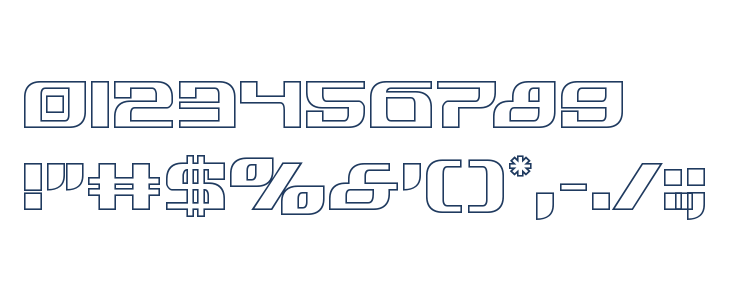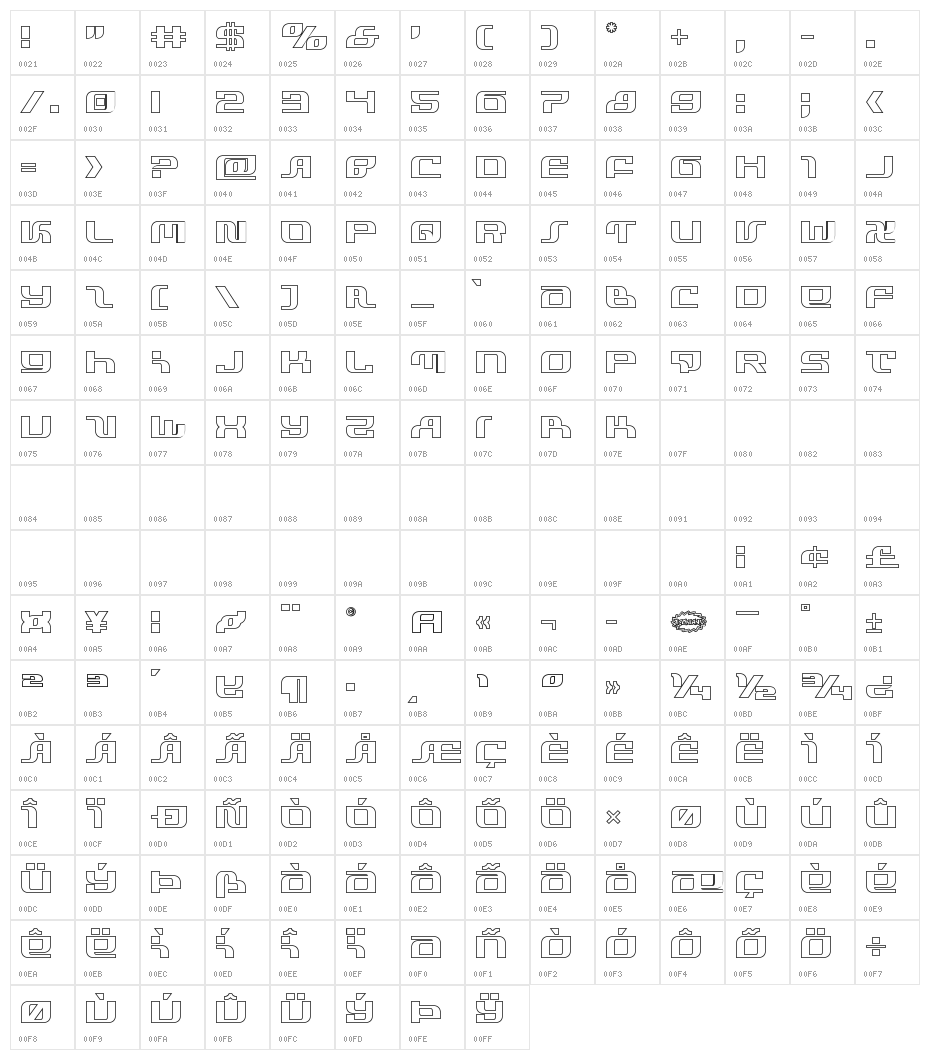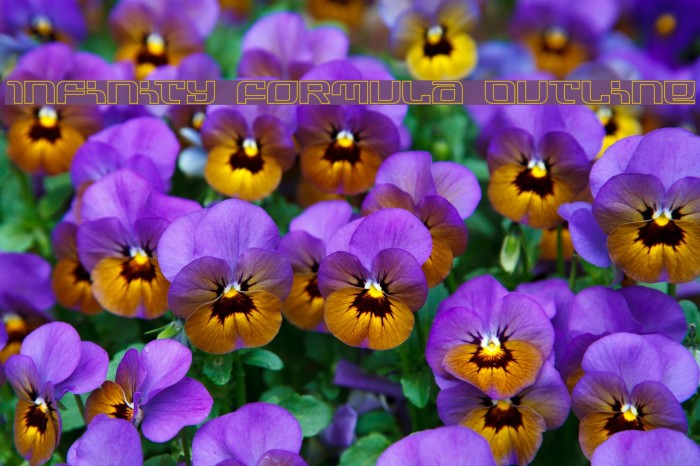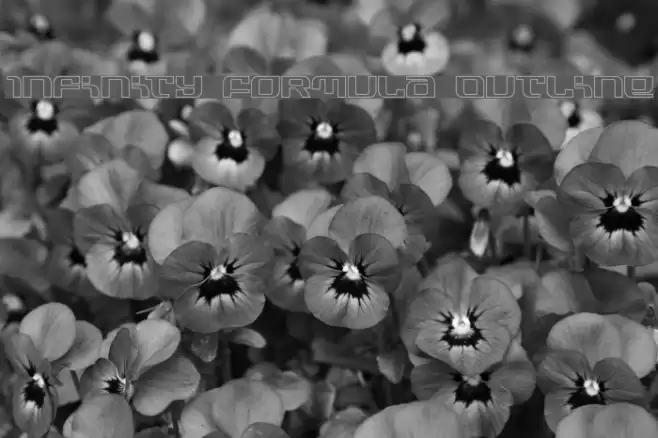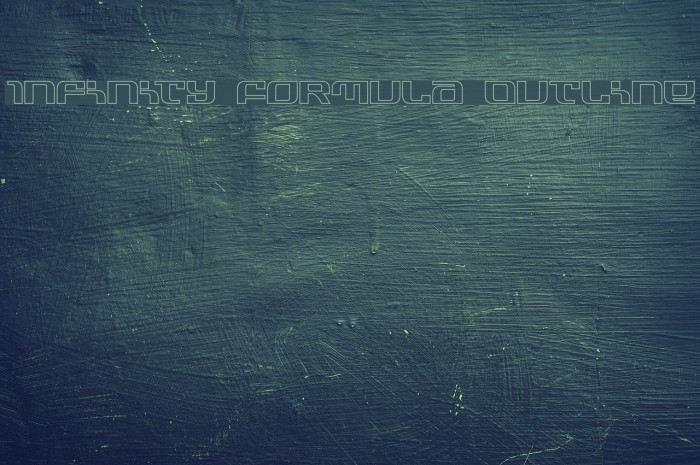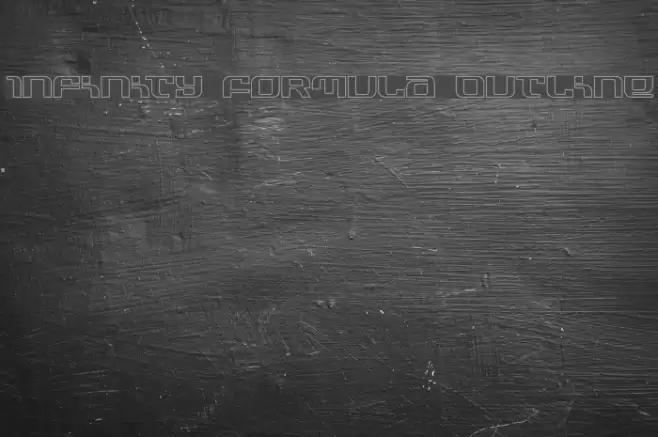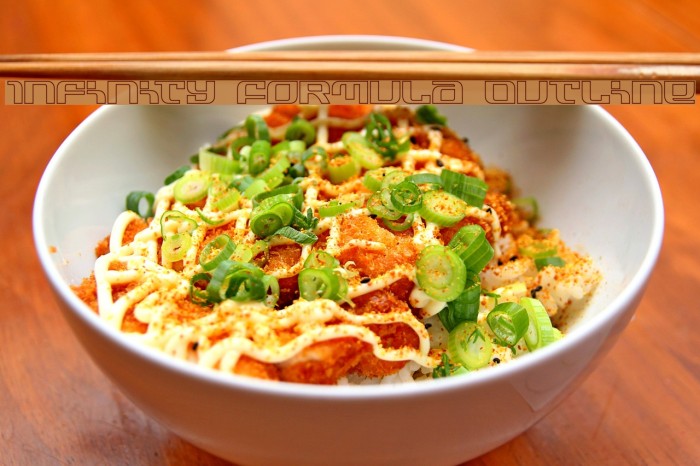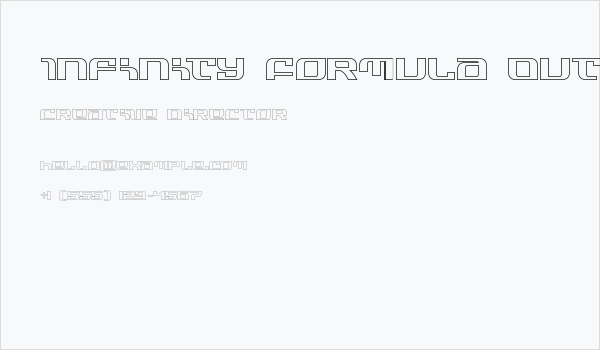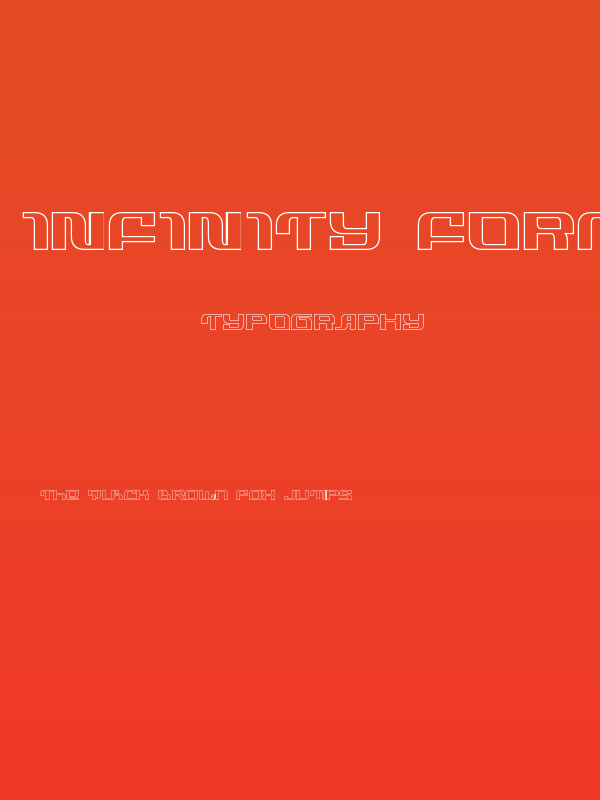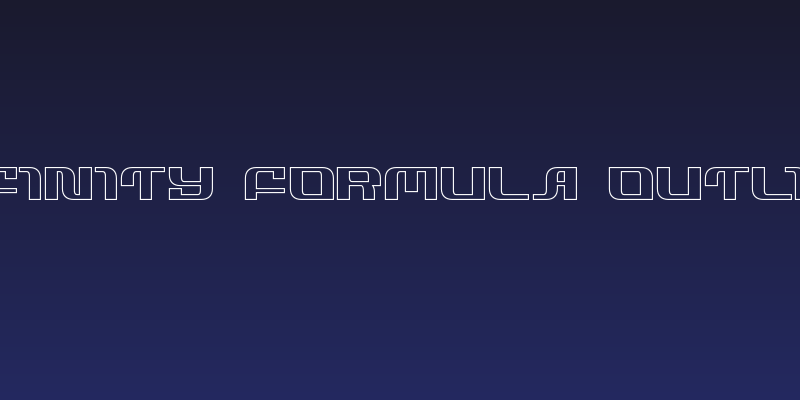
Infinity Formula Outline Font
Infinity Formula Outline Description
This font features a futuristic and geometric design, characterized by its outline style that gives it a unique and modern appearance. The characters are constructed with clean, angular lines and a consistent stroke width, creating a sense of uniformity and precision. The uppercase and lowercase letters maintain a similar structure, enhancing readability while retaining a distinct aesthetic. Numbers and special characters follow the same design principles, ensuring a cohesive look across all glyphs. The font's outline nature makes it ideal for projects that require a bold and eye-catching display, while its geometric form lends itself well to tech-oriented themes.
| Proposed Projects | Ideal for tech-themed designs, futuristic branding, posters, and digital artwork. |